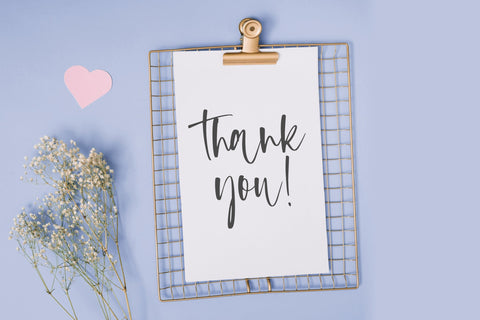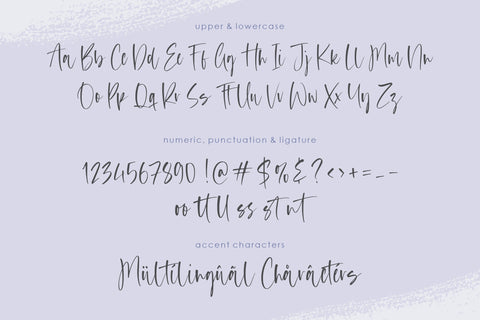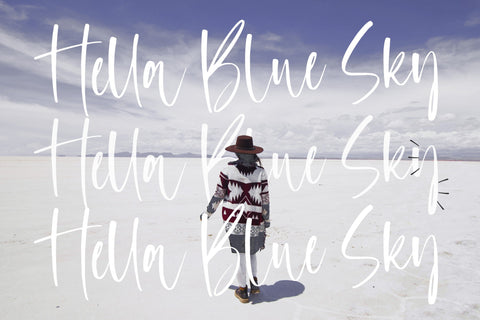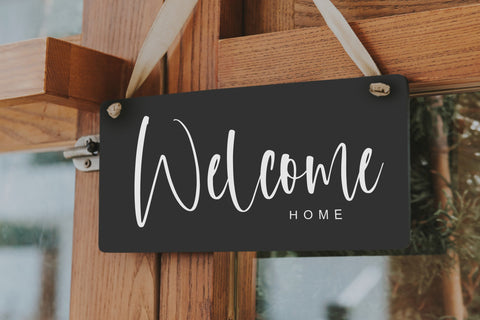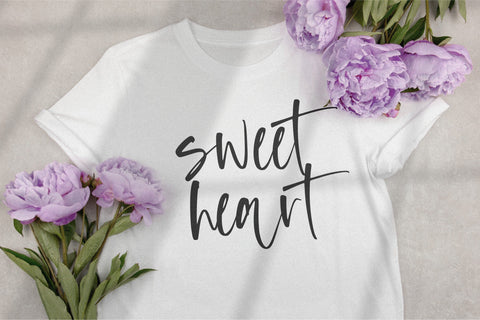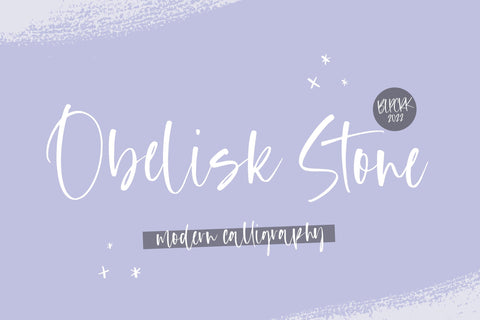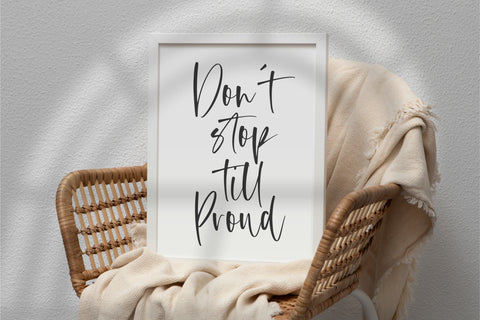
Obelisk Stone Modern Calligraphy Font
Obelisk Stone is a Modern Calligraphy Font.
Obelisk Stone is a dazzling script font. Whatever the topic, this font will be a wonderful asset to your font library, as it has the potential to enhance any creation.